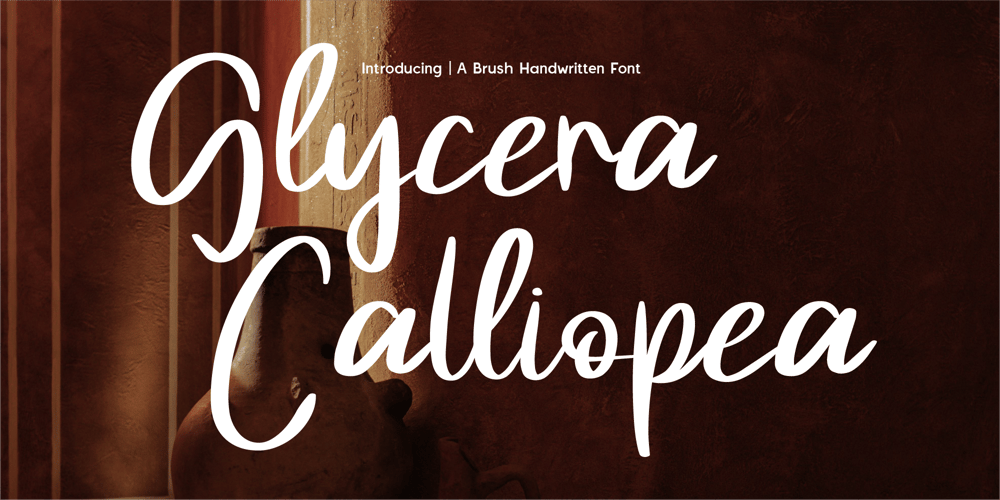
CF Glycera Calliopea Font Family was designed by Gilang Mei Nugraha, Frederik Aristaputra and published by Creatifont Studio. CF Glycera Calliopea contains 2 styles and family package options. Glycera Calliopea – A Graceful & Expressive Brush Handwritten FontStep into the world of handcrafted elegance with Glycera Calliopea, a brush handwritten font that blends fluid strokes with refined sophistication. With its graceful curves and expressive movement, this typeface is perfect for luxury branding, editorial design, wedding stationery, invitations, packaging, and artistic projects.Designed to mimic the natural flow of handwriting, Glycera Calliopea offers an effortless balance of boldness and delicacy. Whether you’re crafting a signature logo, a heartfelt message, or an exquisite fashion campaign, this font elevates your design with charm and class.Why Choose Glycera Calliopea?✨ Elegant Brush Script: A stylish handwritten font with fluid, natural motion.🎨 Perfect for Luxury & Artistic Branding: Ideal for fashion, beauty, and premium products.🖋 Smooth & Expressive Strokes: Designed to replicate the elegance of fine handwriting.📜 Versatile & Timeless: Suitable for invitations, packaging, editorial layouts, and more.Let Glycera Calliopea bring sophistication and artistic flair to your designs. Download now and add a touch of timeless beauty to your creative projects! ✨🖋A SUMMARY OF WHAT’S INCLUDED:- Standard Character A-Z, a-z, 0-9, Punctuation & symbols- Regular and Italic- Works on PC & Mac- Simple installation- Accessible in Adobe Creative Suite (Ai, Ps, Id, etc.) even work on Microsoft Word.- PUA Encoded Characters – Fully accessible without additional design software.🌟If you come across any issues or notice anything we might have overlooked while using this product, please feel free to reach out to us. We greatly value your feedback as it helps us enhance and refine our products. Thank you!